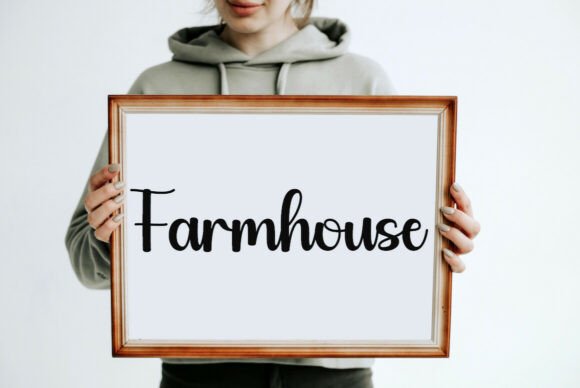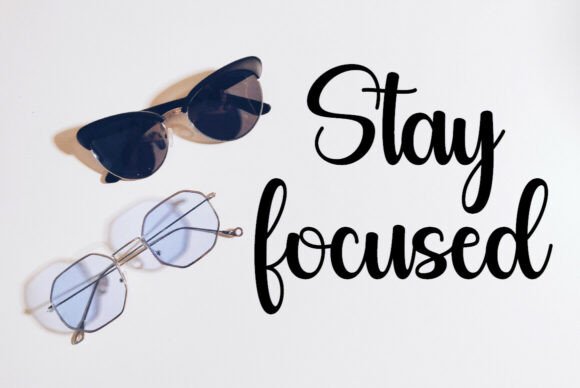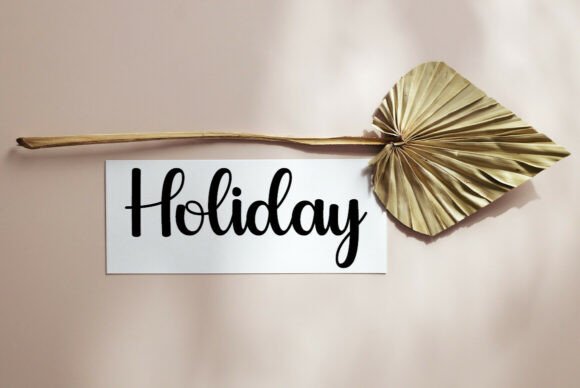
Introduction to Counter Script Font
Counter script is a delicate and refined script font that emanates sophistication and elegance.
Fall in love with its incredibly versatile style and use it to create gorgeous wedding invitations, beautiful stationary art, eye-catching social media posts, and much more .
Key Features of Counter Script Font
Why Choose Counter Script Font?
Counter Script Font offers exceptional quality and versatility, making it a valuable addition to your design toolkit. Whether you’re creating for personal projects or commercial use, Counter Script Font delivers professional results.